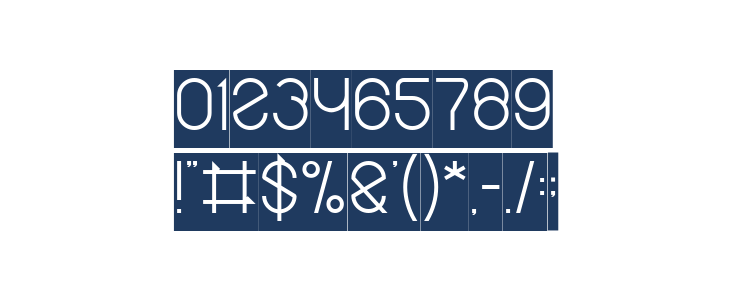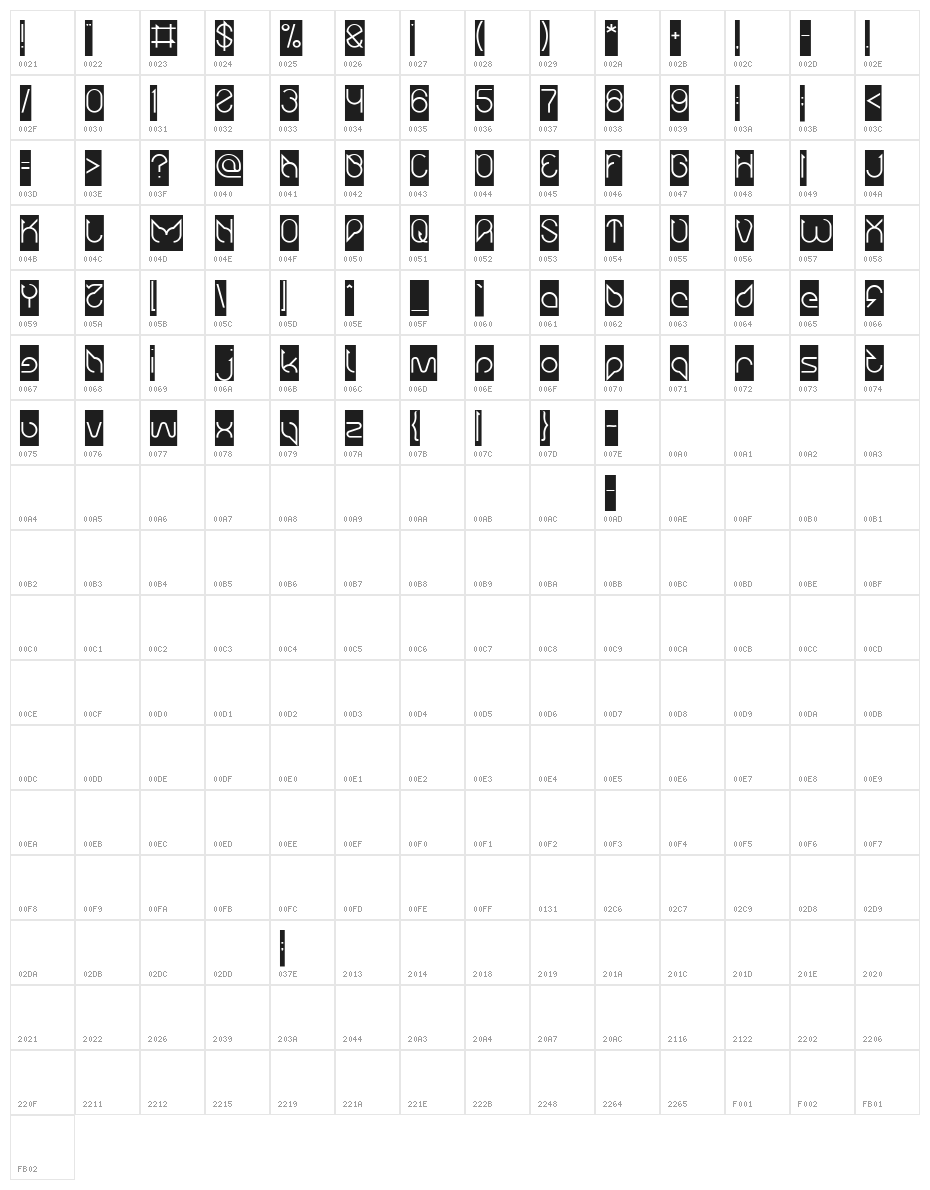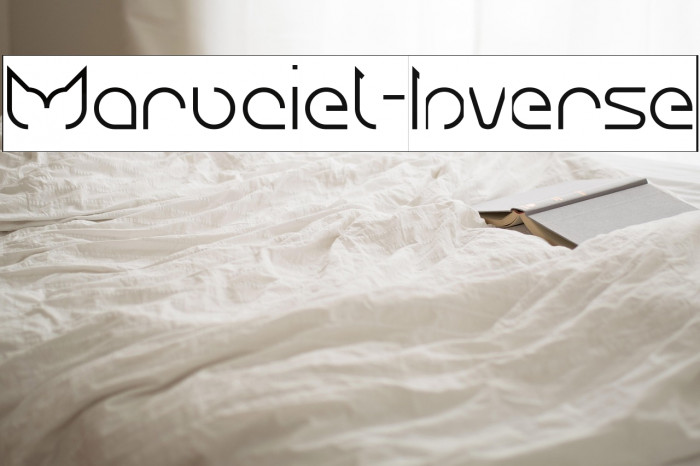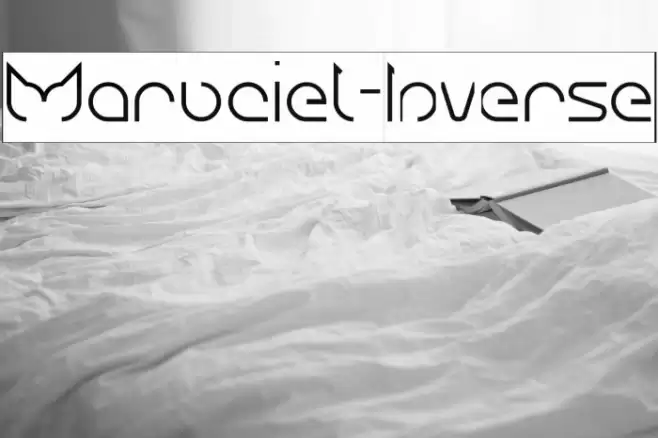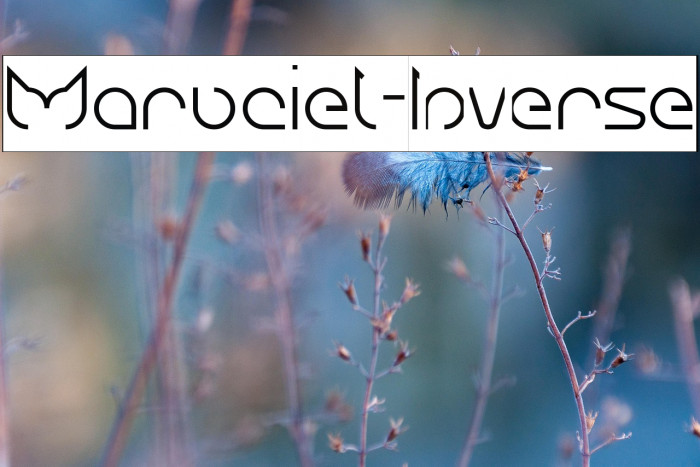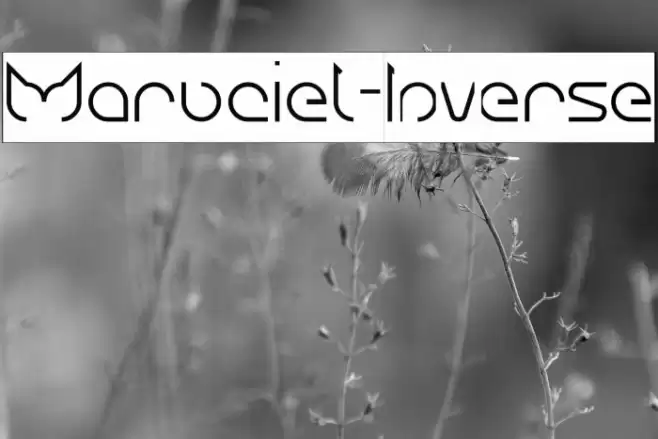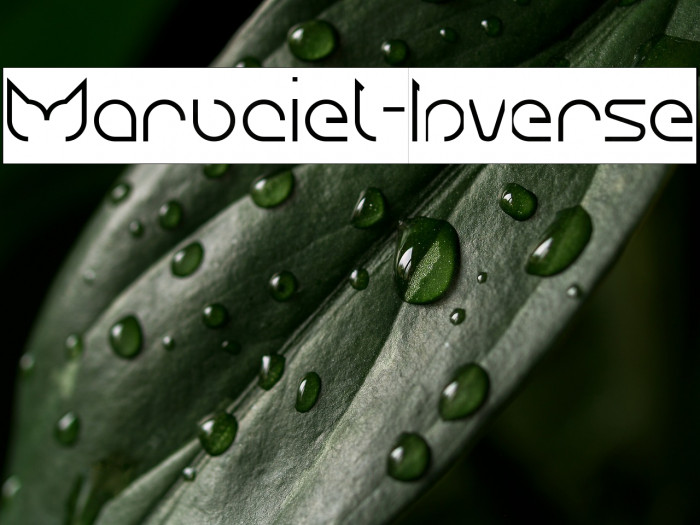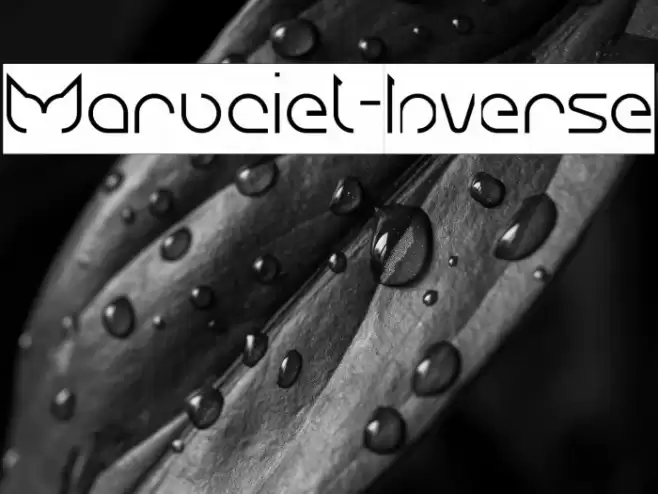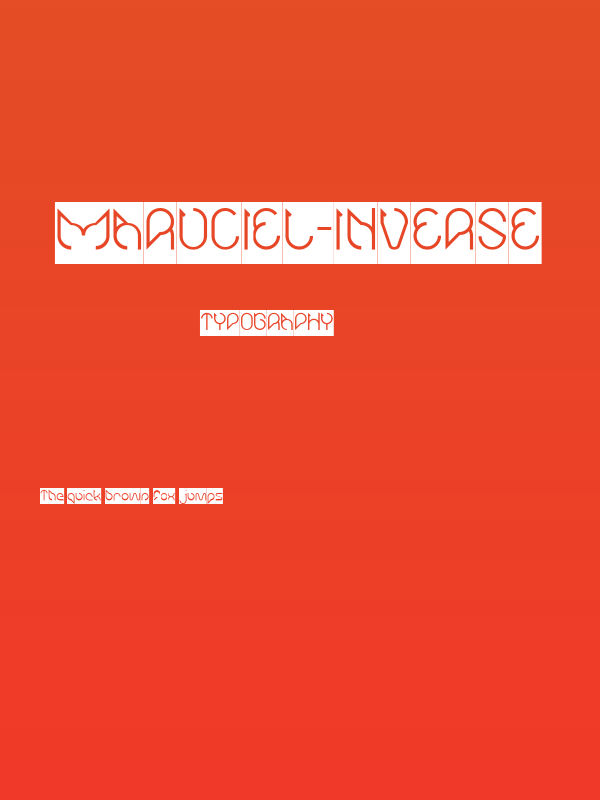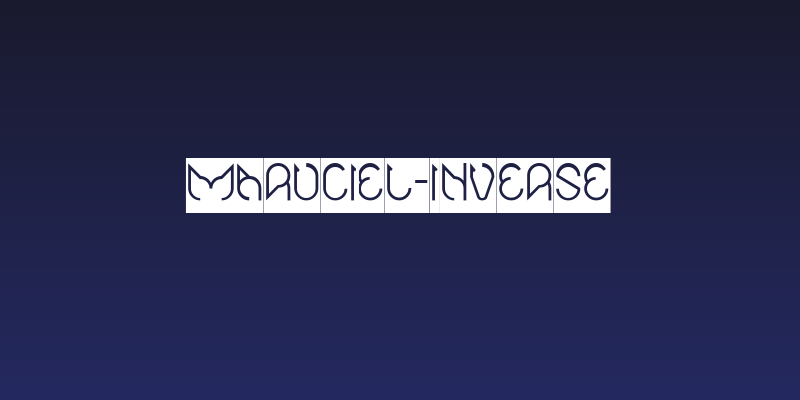
Maruciel-Inverse Font
Maruciel-Inverse Description
This font features a unique and futuristic design with sharp angles and geometric shapes. The characters are crafted with a blend of straight lines and curves, creating a dynamic and modern appearance. The uppercase letters are bold and striking, while the lowercase letters maintain a consistent style with a slightly softer touch. Numbers and special characters follow the same design principles, ensuring a cohesive look across all elements. The font's distinct style makes it ideal for projects that require a contemporary and edgy aesthetic.
| Proposed Projects | Ideal for branding, sci-fi themed designs, video game titles, and modern advertising. |